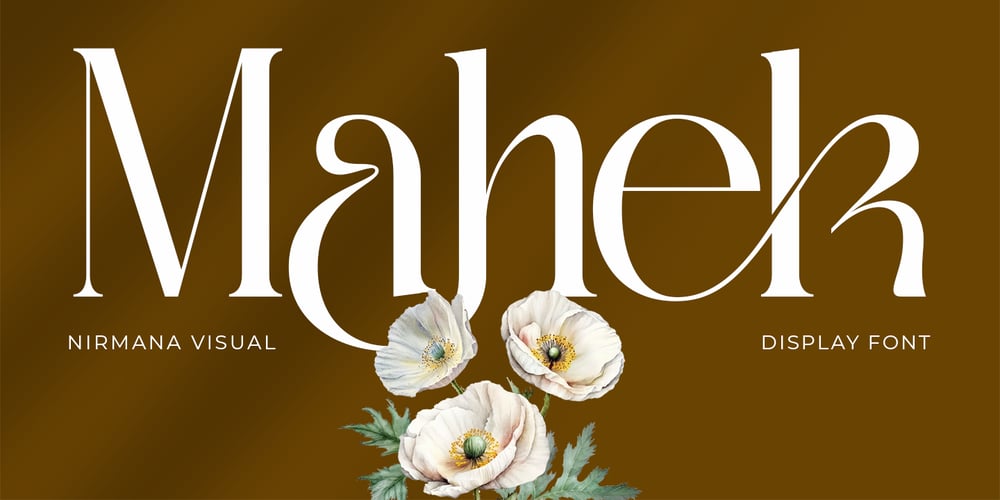
Mahek Font Family was designed by Sigit Dwipa and published by Nirmana Visual. Mahek contains 1 styles and family package options. A serif display font with abundant ligatures and alternates exudes timeless elegance, perfect for classic yet distinctive branding. Each character is meticulously crafted to balance tradition and creativity, offering a sophisticated aesthetic with a modern twist. The ligatures and alternates enhance versatility, making it ideal for logos, headlines, and luxury packaging. Its refined details and unique forms capture attention, ensuring a memorable brand presence that stands out in competitive markets.